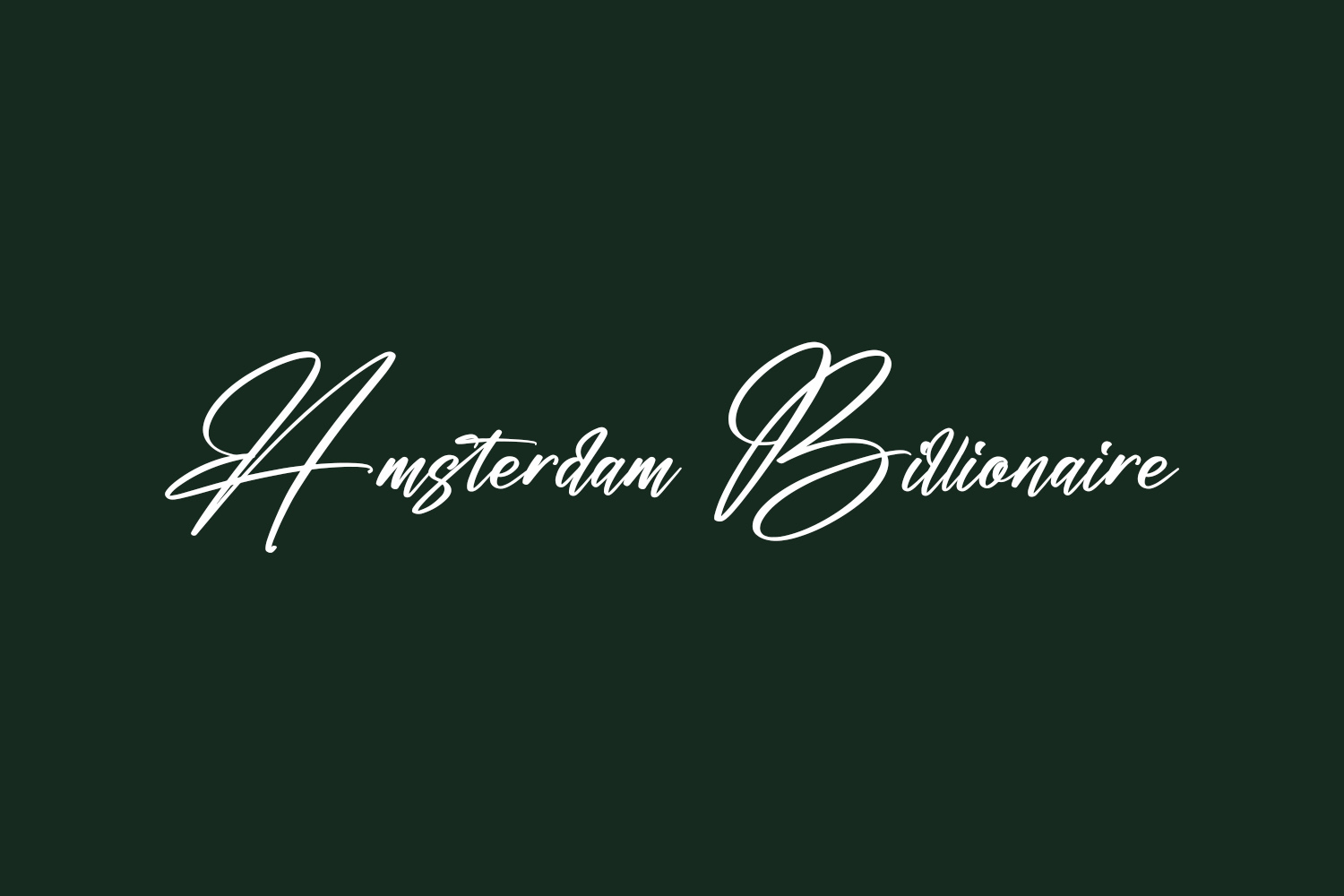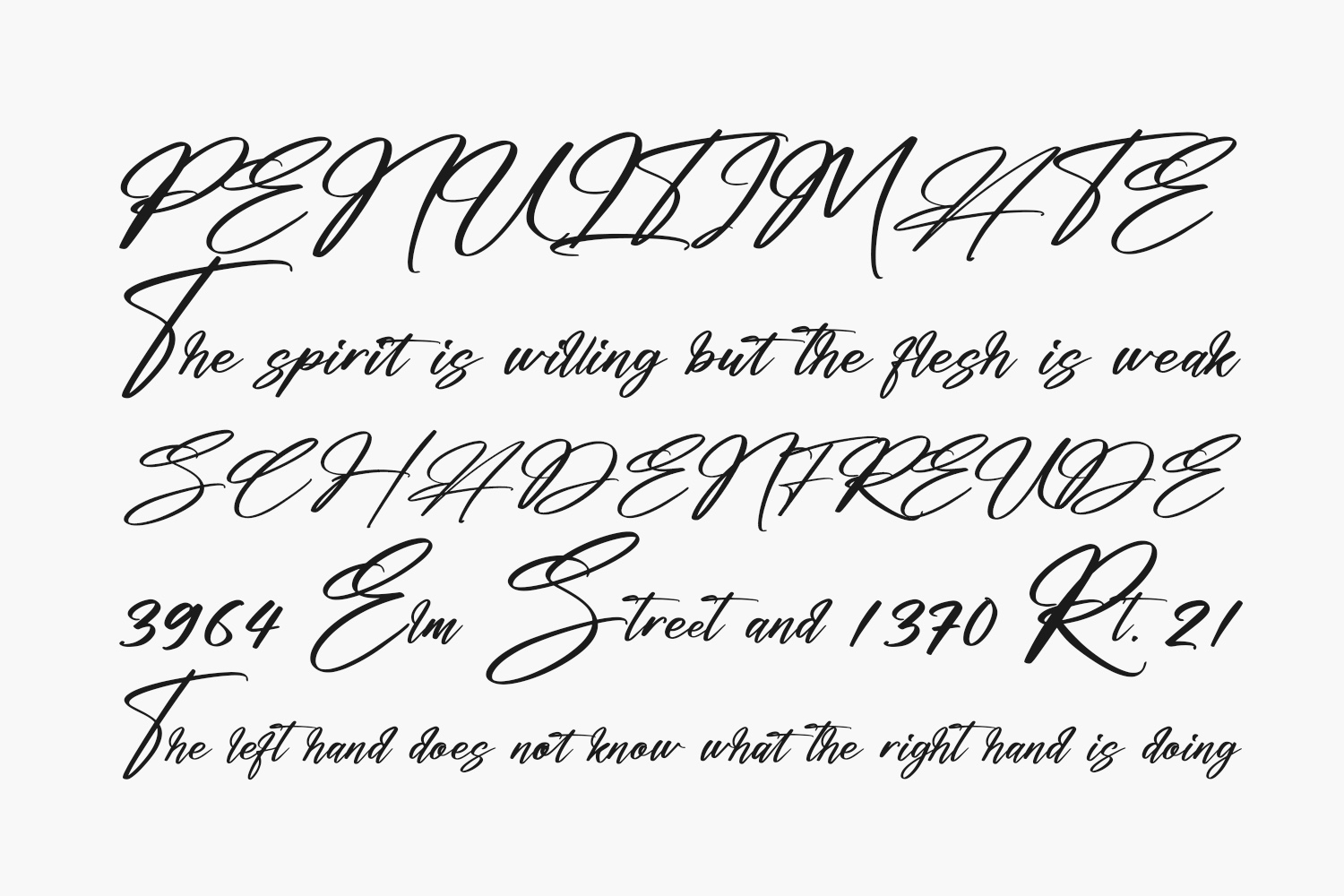
Amsterdam Billionaire Free Font Family is a modern and sleek script font. It is perfect for projects that need a premium signature taste, such as branding, homeware designs, mugs, quotes, book covers, name cards, meeting cards, and more. Amsterdam Billionaire Free Font Family was designed by Letterena Studios and is free for personal use only. Please purchase the full version for commercial use.